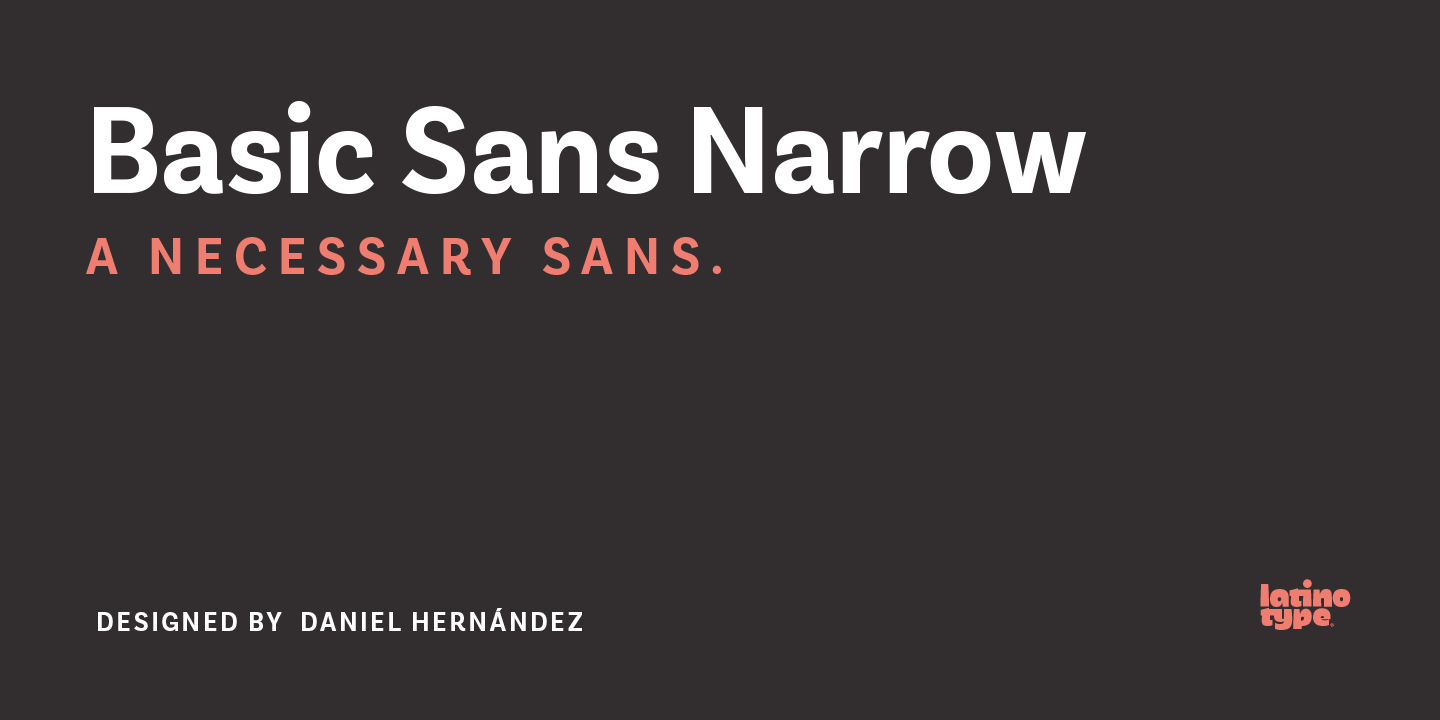
Basic Sans Narrow Font is perfect for compact magazine layouts, space-efficient newspaper columns, mobile app interface design, narrow signage systems, condensed corporate communications, efficient data table presentations, streamlined website headers, vertical banner advertising, space-saving packaging labels, and minimalist brand identities. Its efficient narrow character makes it ideal for projects requiring maximum readability in minimal space.
What makes Basic Sans Narrow Font exciting is its intelligent optimization of space and readability with condensed letterforms and efficient characteristics that capture the essence of modern space-conscious design and functional typography excellence. The font features compressed proportions, optimized character spacing, and systematic construction that create clean atmosphere and professional appeal. Its efficient personality brings clarity and functionality to contemporary designs while maintaining the legibility essential for compact communications and space-limited presentations. The carefully engineered narrow elements ensure maximum text density while preserving the distinctive character that embodies the essence of functional design and typographic efficiency.
Basic Sans Narrow Font comes in multiple efficient variations including Light, Regular, Medium, Bold, and Condensed styles. Each family member maintains the distinctive narrow character while offering comprehensive weight options for hierarchical typography and space-efficient brand system development. The complete font family includes alternate characters, functional symbols, and efficient punctuation marks that enhance the streamlined aesthetic and provide essential tools for compact communication excellence.
Whether you're developing space-conscious brands, efficient publications, or compact interface projects, Basic Sans Narrow Font Free Download provides the functional efficiency needed to communicate effectively in limited space while maintaining professional quality and optimal readability standards. The font's practical appeal resonates with designers, publishers, and interface professionals seeking authentic functional credibility and efficient sophistication. Its comprehensive character set includes functional symbols and compact marks, making it perfect for creating complete space-efficient brand systems and memorable functional storytelling across diverse compact applications and efficiency-focused design projects that celebrate practical typography and space optimization excellence.